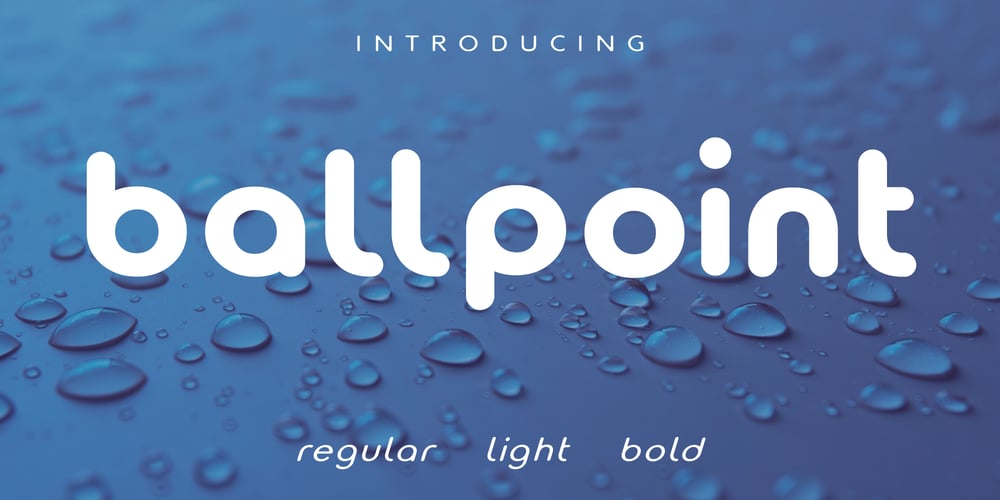
Ballpoint Font Family was designed by David Fox and published by FontJuice. Ballpoint contains 6 styles and family package options. Ballpoint font family was designed by David Fox in 2021 for the FontJuice™ foundry. A rounded sans serif style, Ballpoint has a simplicity which does not reject traditional forms . It is non ornamental and non emotional, just clearly presentable. This font is suitable for logotype, brand, packaging, quotes, music poster, t-shirt, cover book and more custom design. More specifically, whilst the heavier weights are best used for display in advertising, the lighter weights remain readable in text.Ballpoint features uppercase, lowercase, numeral, punctuation & symbol, multilingual support.